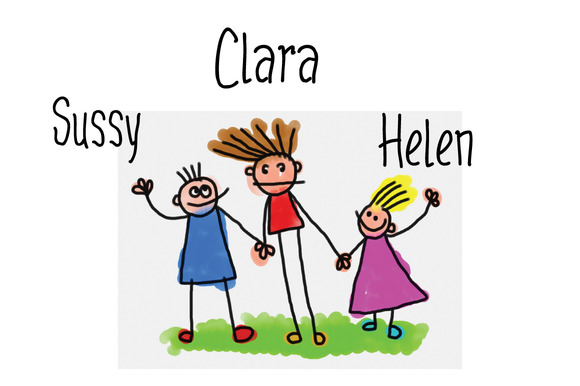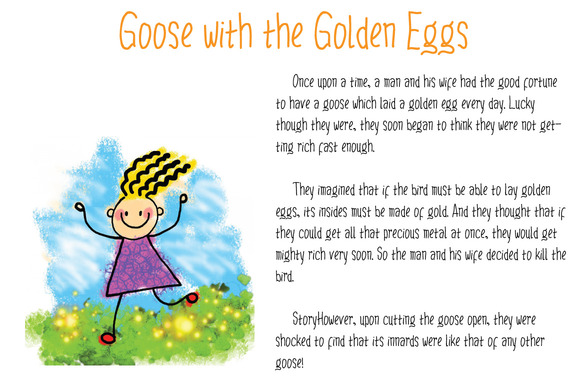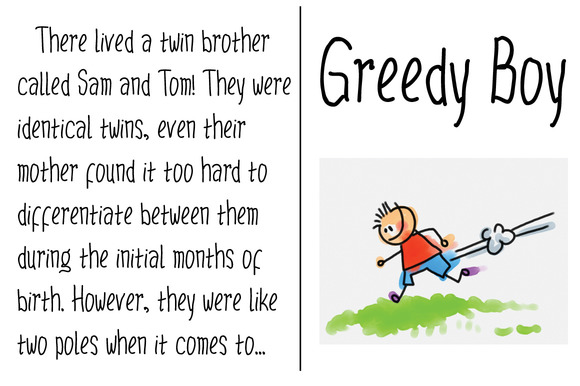
Kidtype Font – Free Download
Introduction to Kidtype Font
Kid Type is a very playful handwritten font which is great for kids designs.
Kid Type is a very playful handwritten font which is great for kids designs! Comes with a total of 270 glyphs and has: Complete Punctuation Support for Latin Languages Eastern European Support Turkish